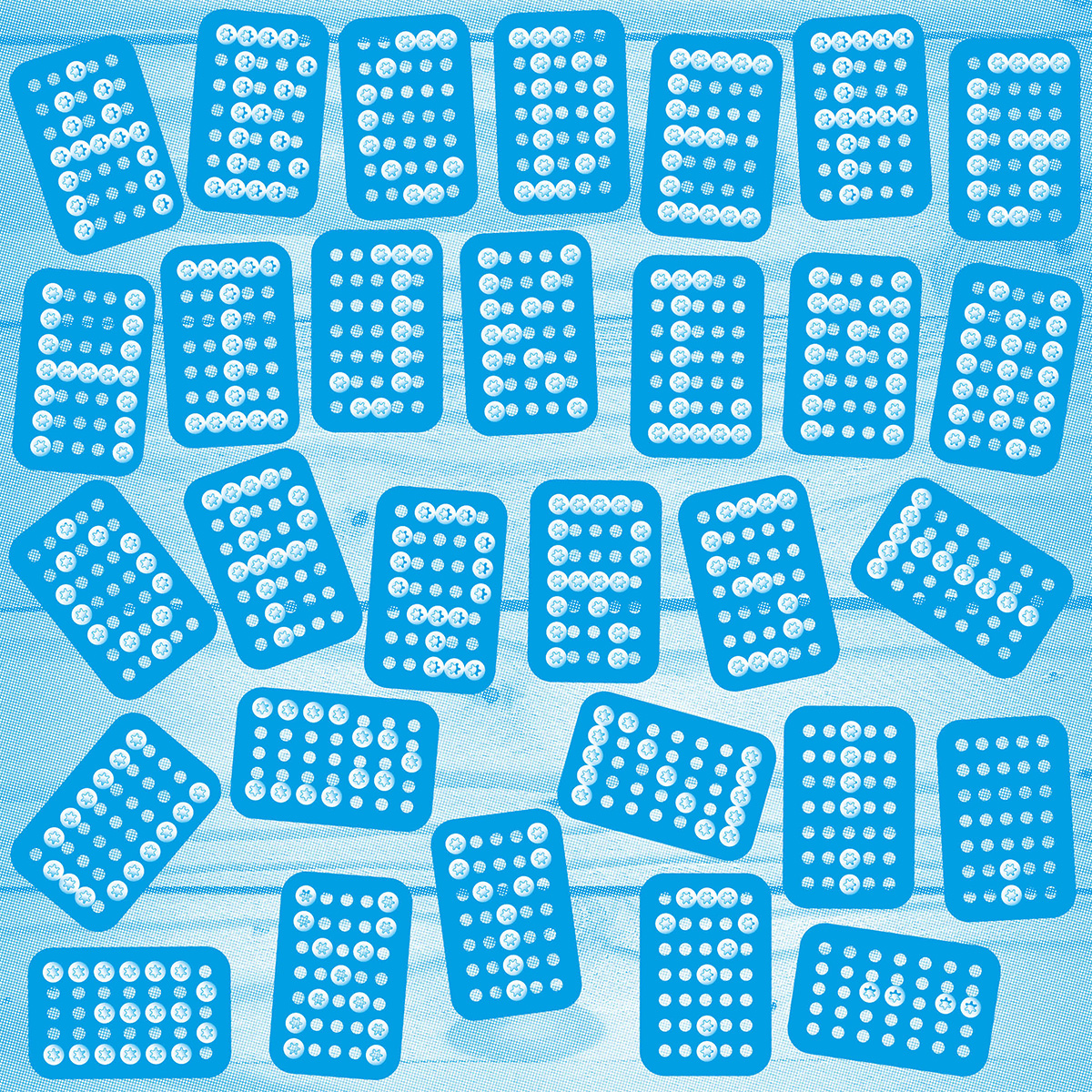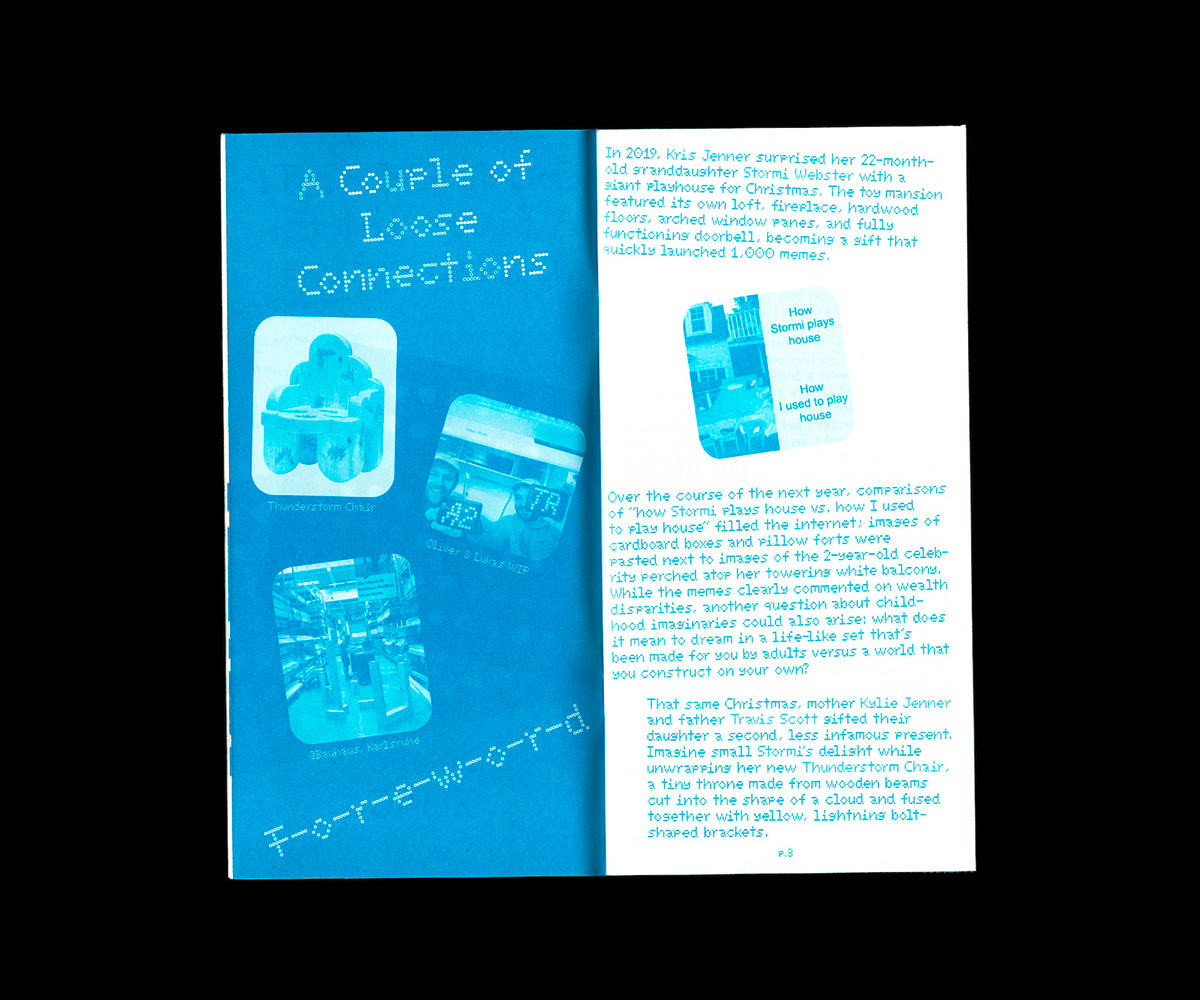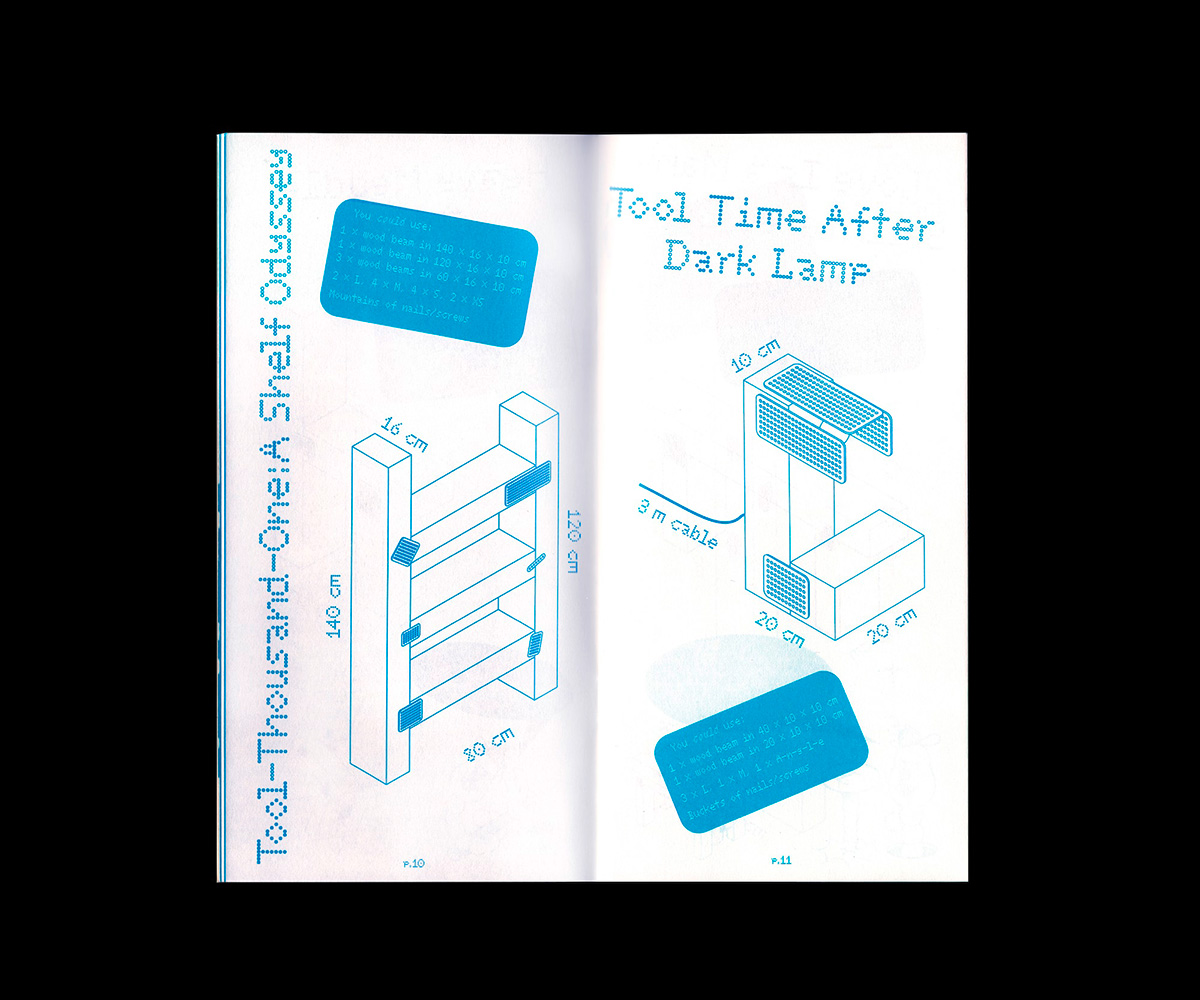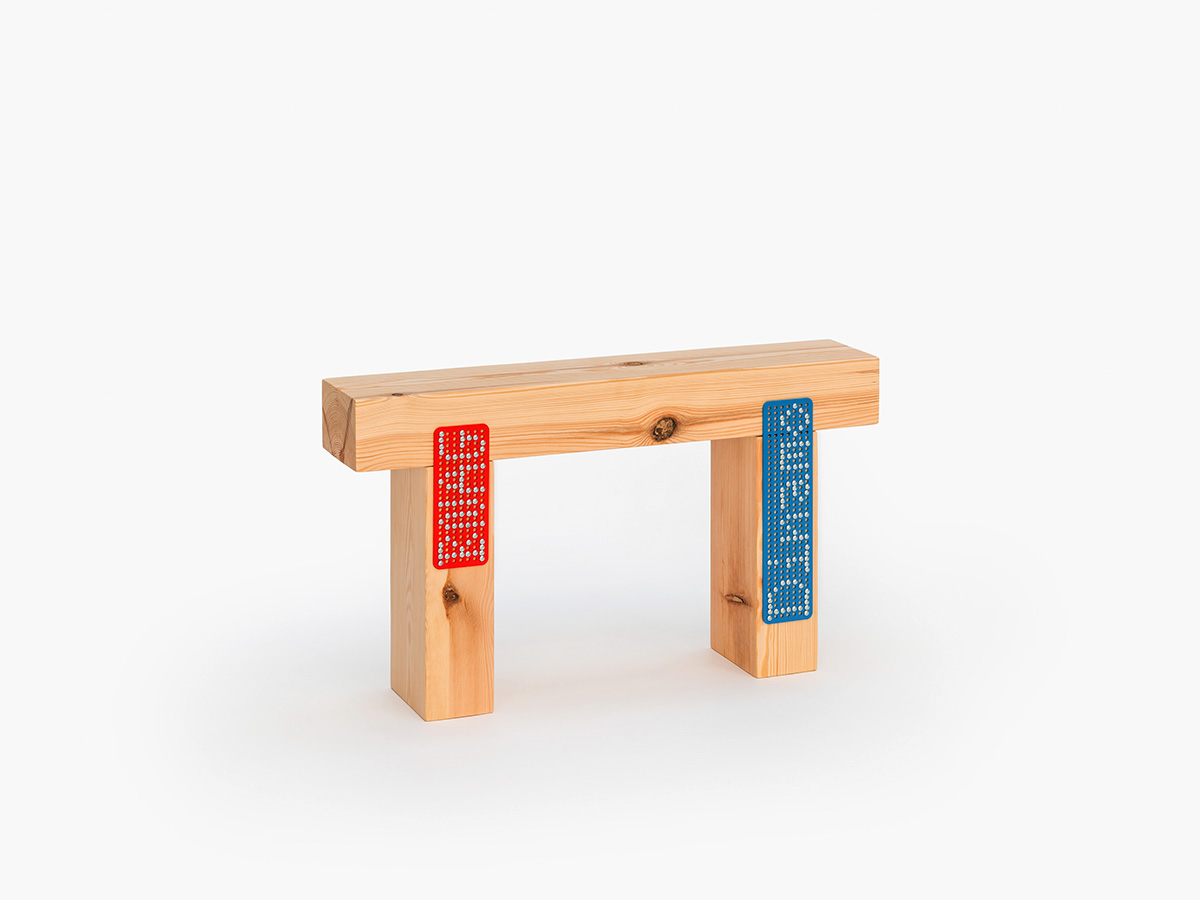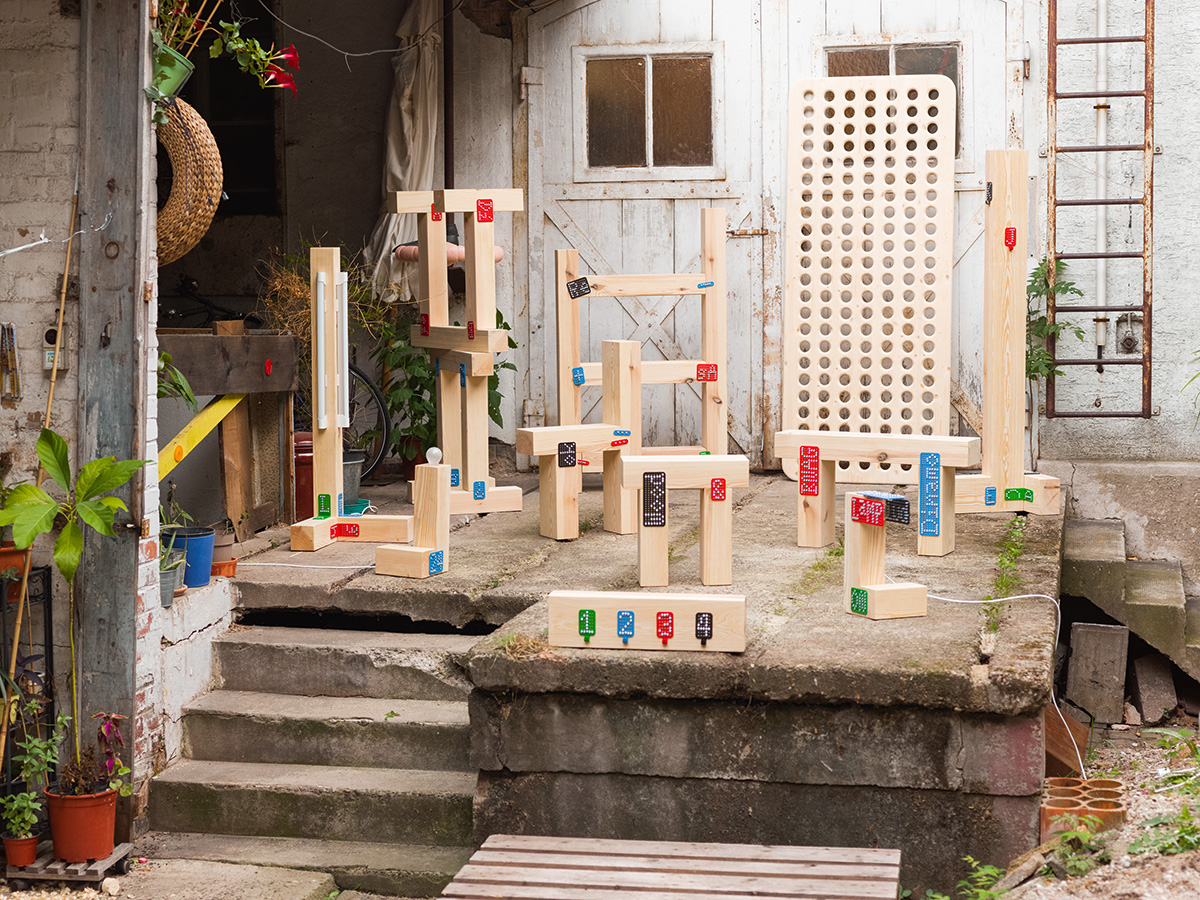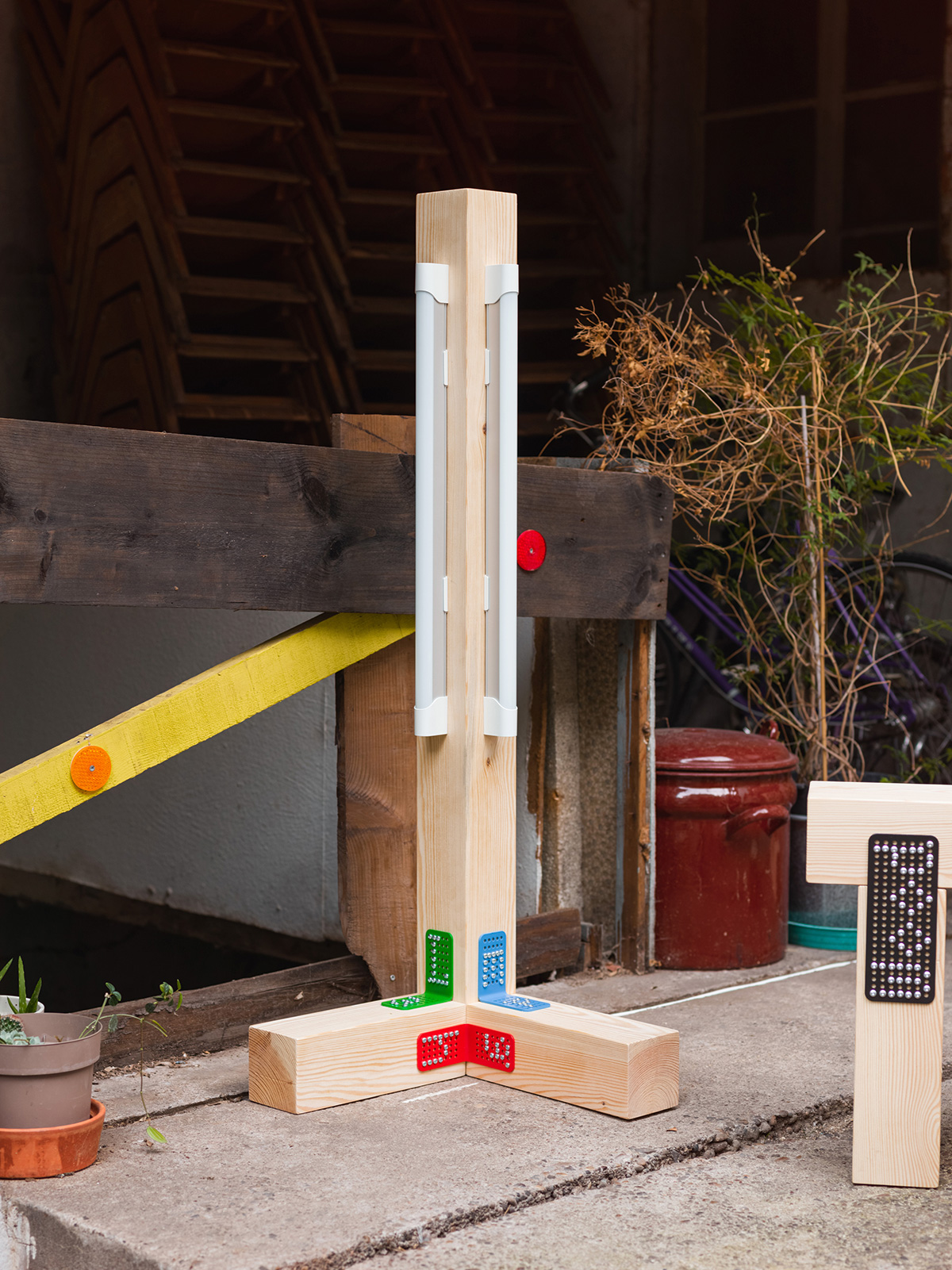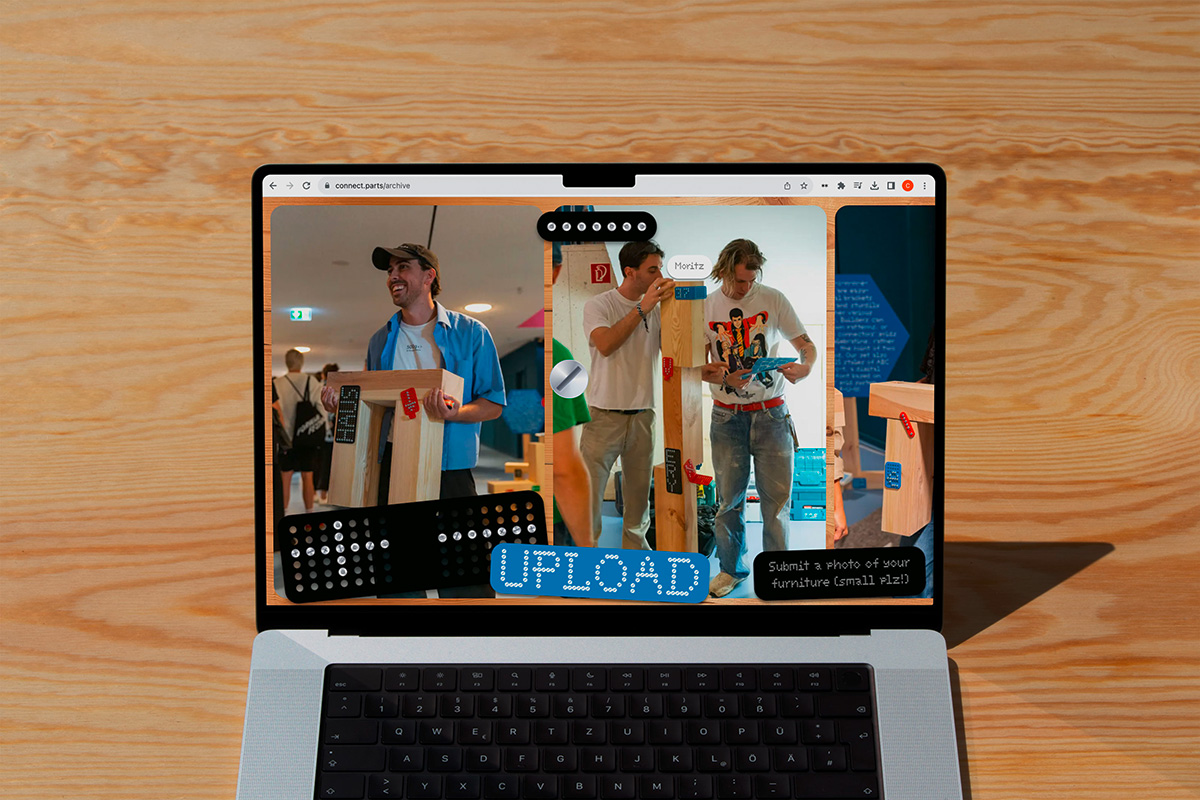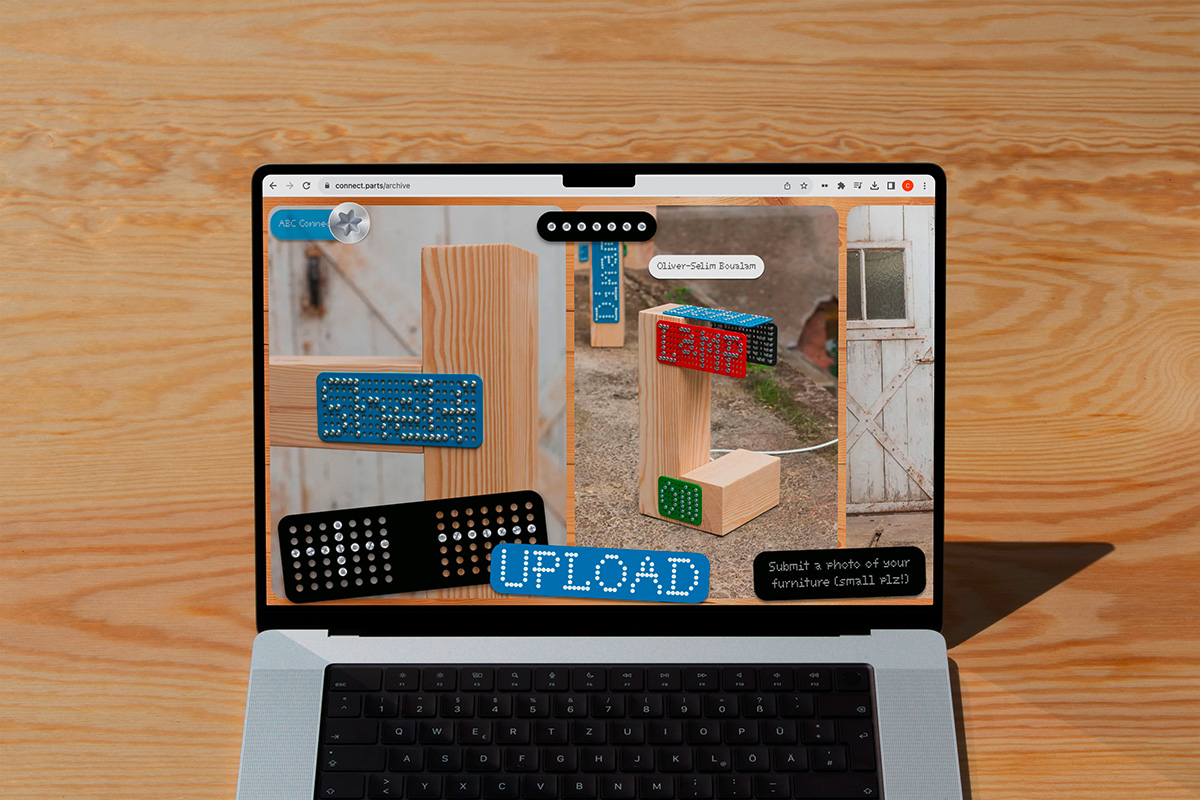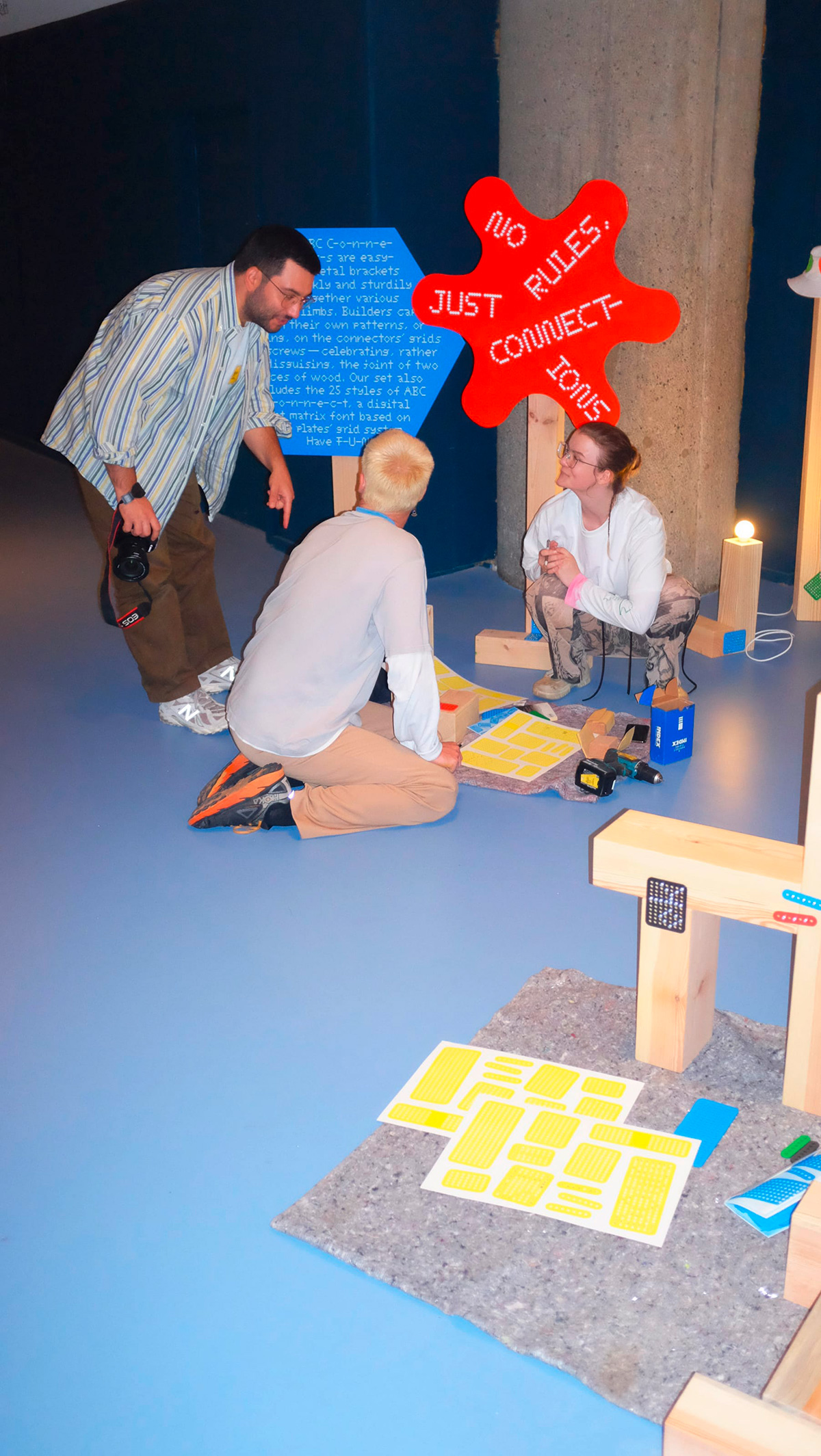
ABC Connect Unites Fonts with Furniture
A digital dot font and accompanying set of metal brackets, which let users create lettershapes with screws
The German type foundry Dinamo and design studio BNAG have connected (🤭🙄) to create a digital dot font and accompanying set of metal brackets, which let users create lettershapes with screws.
Let’s explain: The ABC C-o-n-n-e-c-t-o-r-s are easy-to-use brackets that help DIY builders join bits of wood together for quick, spontaneous furniture making. Inside their dot matrix grids, builders can arrange screws into letter shapes or other patterns. Unlike traditional furniture, which conceals nails, screws, and other binding techniques, these connectors celebrate—rather than disguise—how an object is constructed.
ABC C-o-n-n-e-c-t is Dinamo’s dot font inspired by the metal brackets’ own grid system, available in five screw head styles. It contains monospaced and proportional styles, all with corresponding Italics, making it (probably) the world’s first Italic dot font.
Alongside the font and metal bracket system, Dinamo has also released a zine and web tool. The publication contains instructions for possible furniture designs made using the grid of the font, as well as “blueprints” for creating letterforms with screws. At www.connect.parts, visitors can upload images of their C-o-n-n-e-c-t-o-r creations with the click of a button.